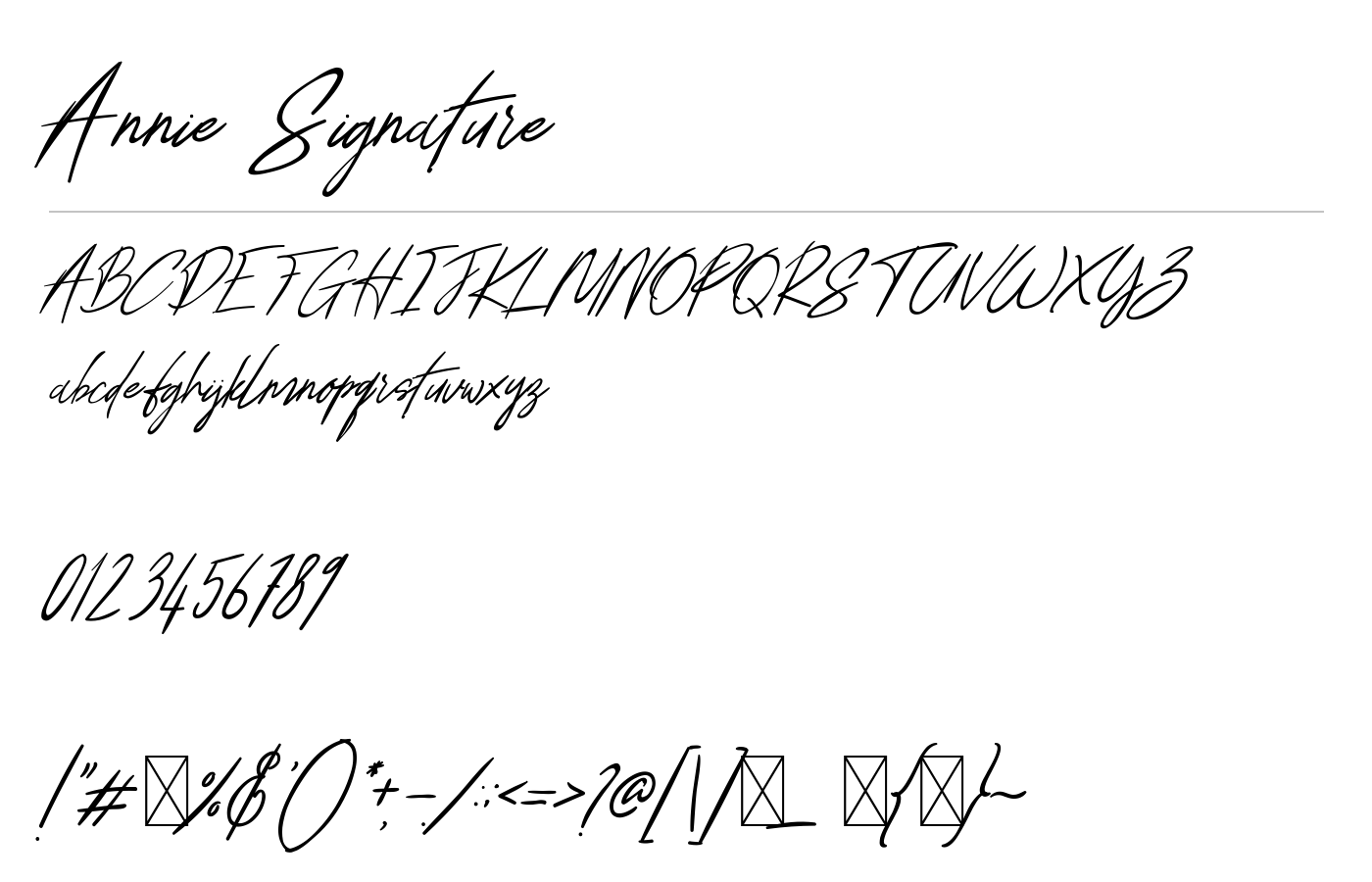
Annie Signature is a slender, elegant script font that mimics natural handwriting with smooth, flowing strokes and a slightly casual feel. Its tall, narrow letterforms and consistent thin weight make it perfect for adding a personal, stylish touch to branding, invitations, and logos where a refined yet approachable look is desired. This font works best for designs that need a sophisticated, handwritten appearance without heavy ornamentation.
Annie Signature Font